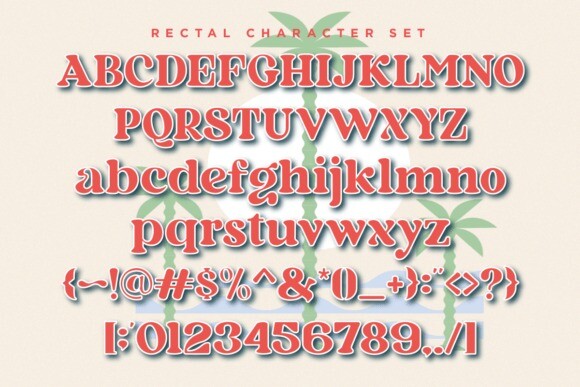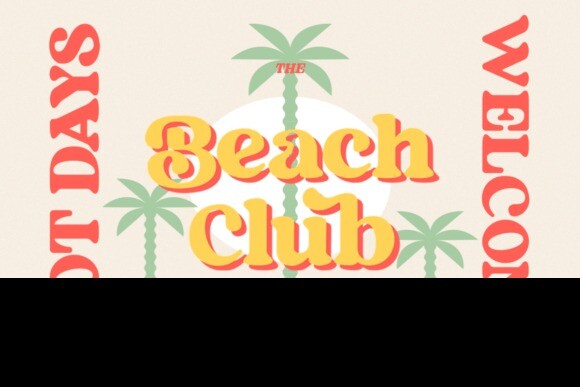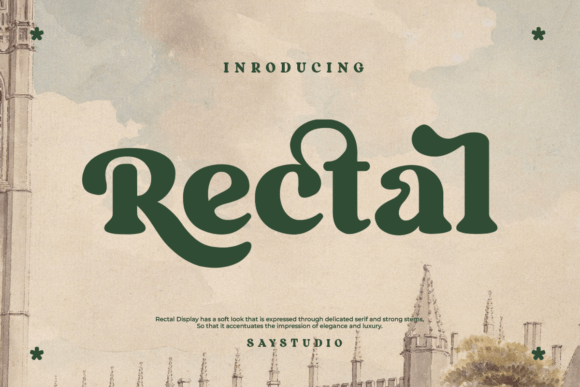
Rectal Font
Rectal Font is a well-balanced retro modern vintage font with a fancy, playful, unique, and versatile vintage serif family with 60+ alternates and Ligatures that you can combine to get curves and beautiful shapes easily just in seconds. It is a display font with moderate contrast that perfect for branding projects, logo, wedding designs, social media posts, advertisements, product packaging, product designs, label, photography, watermark, invitation, stationery, and any projects, it makes with a high level of legibility.